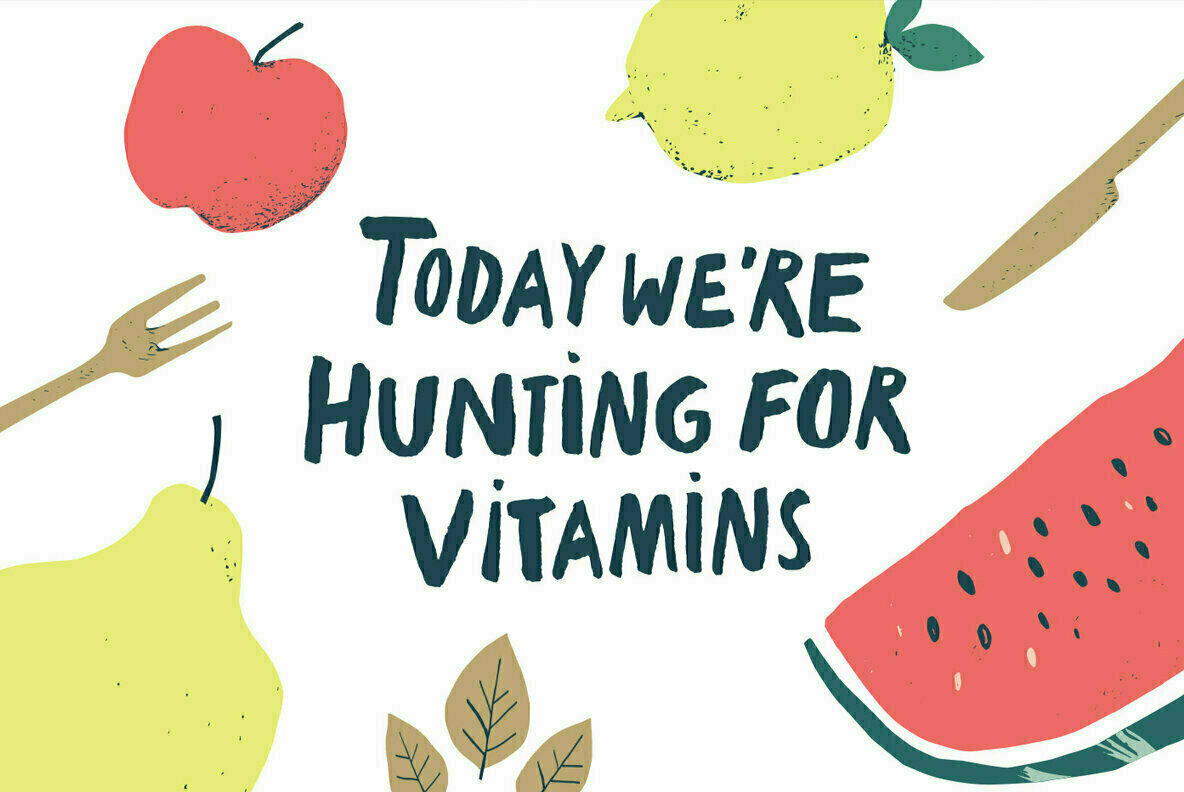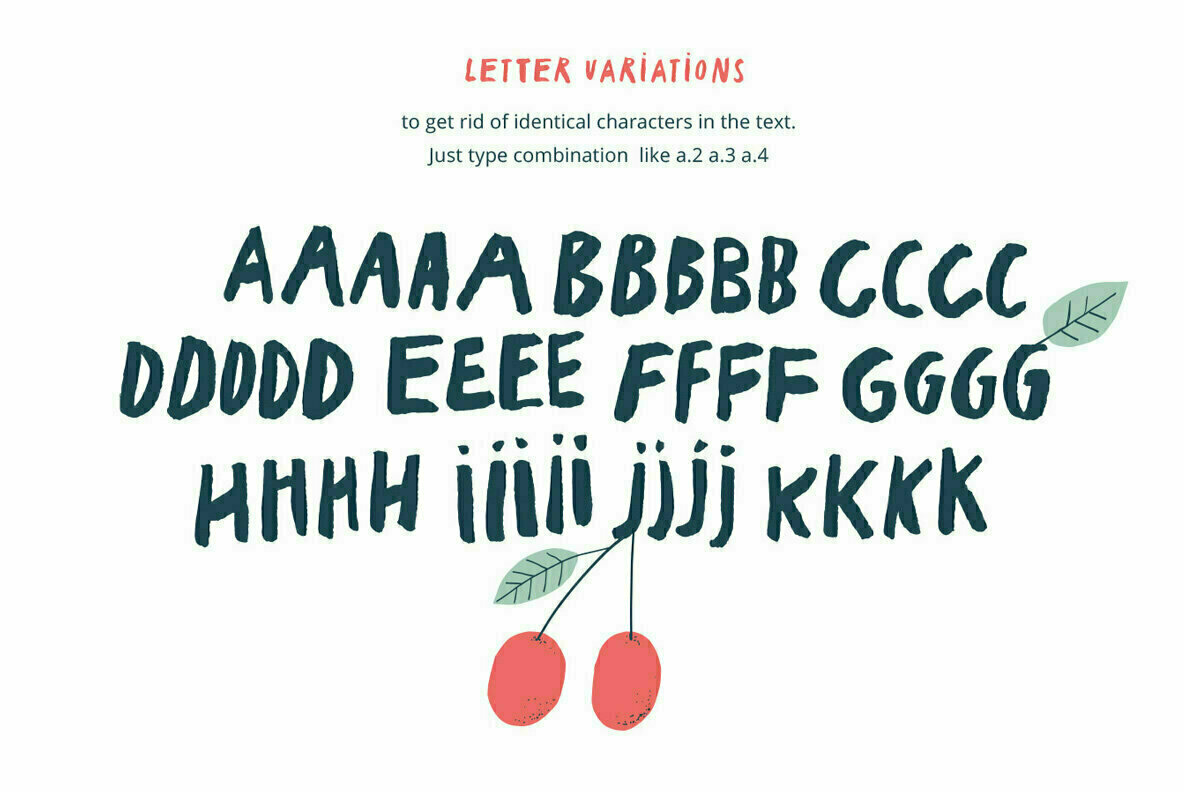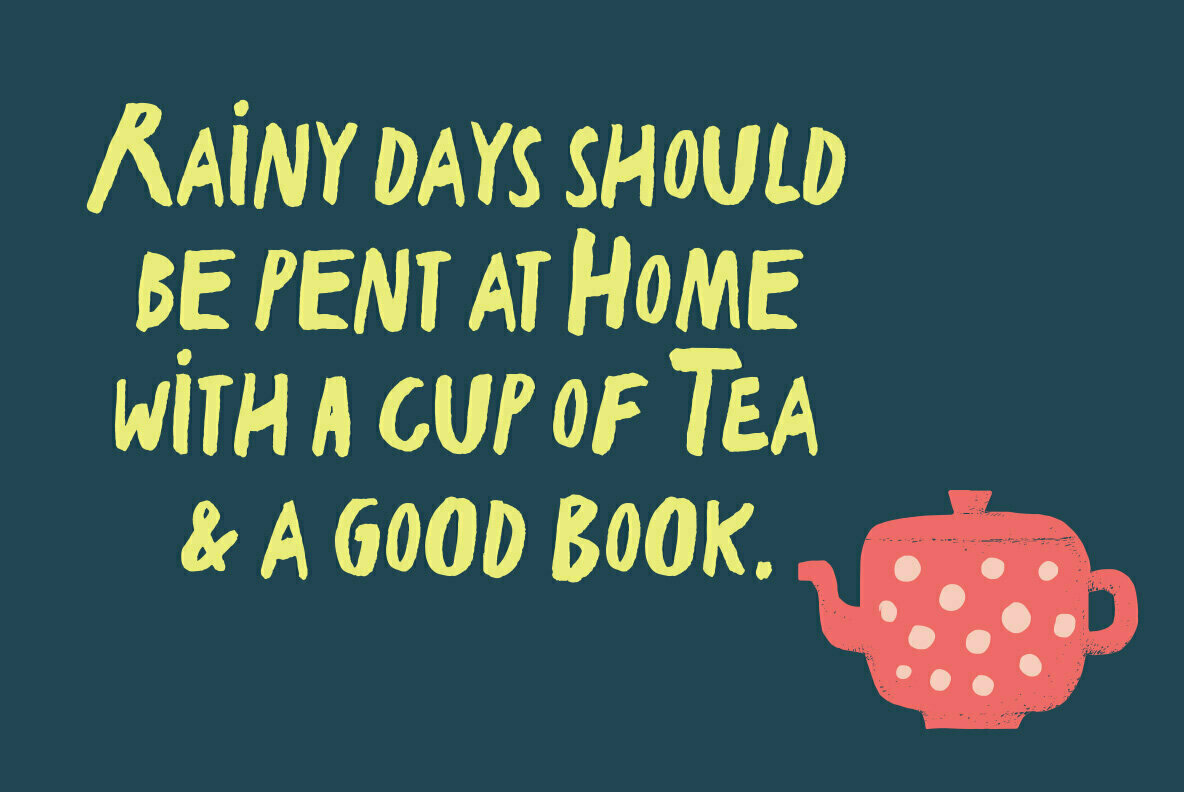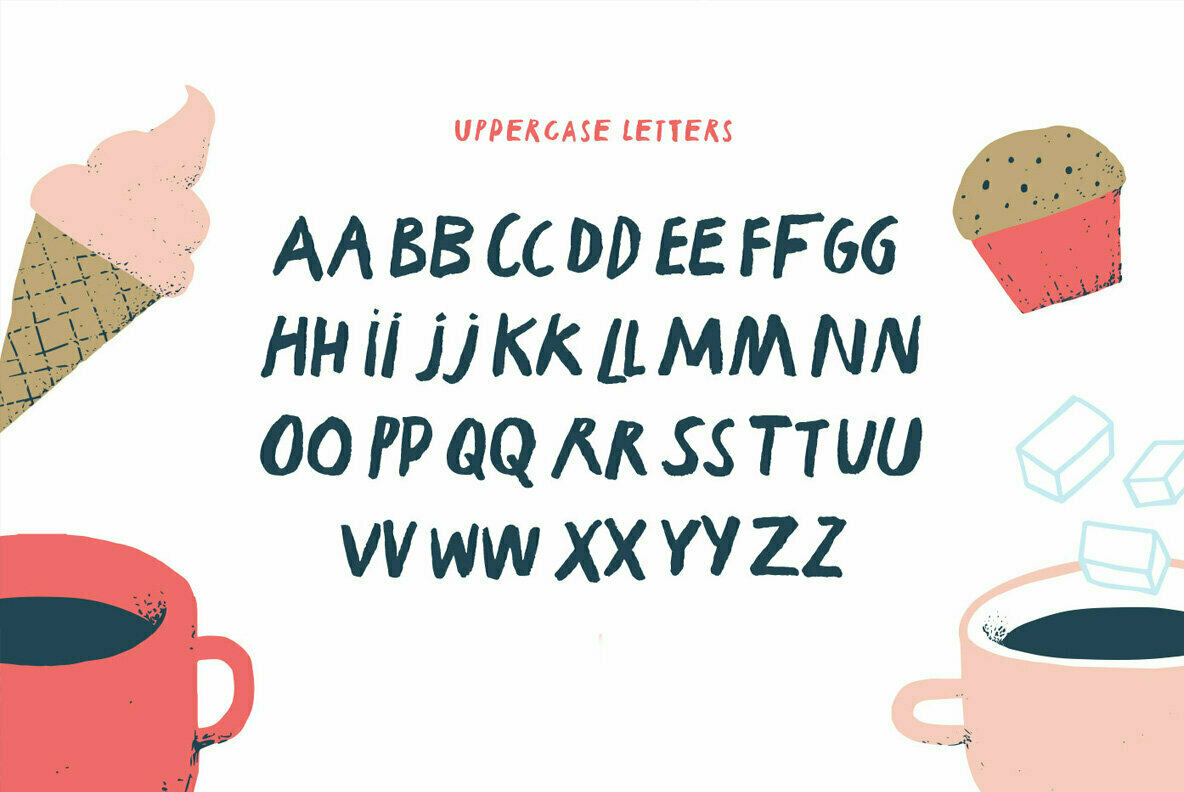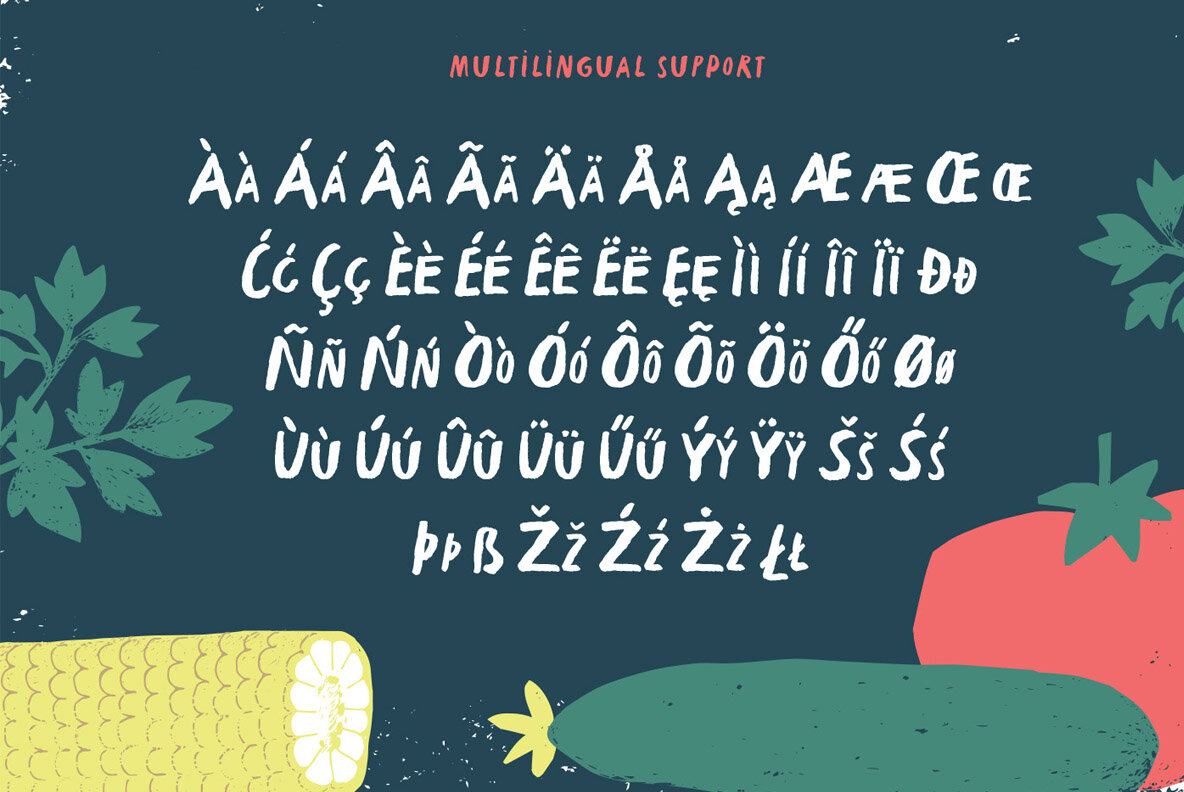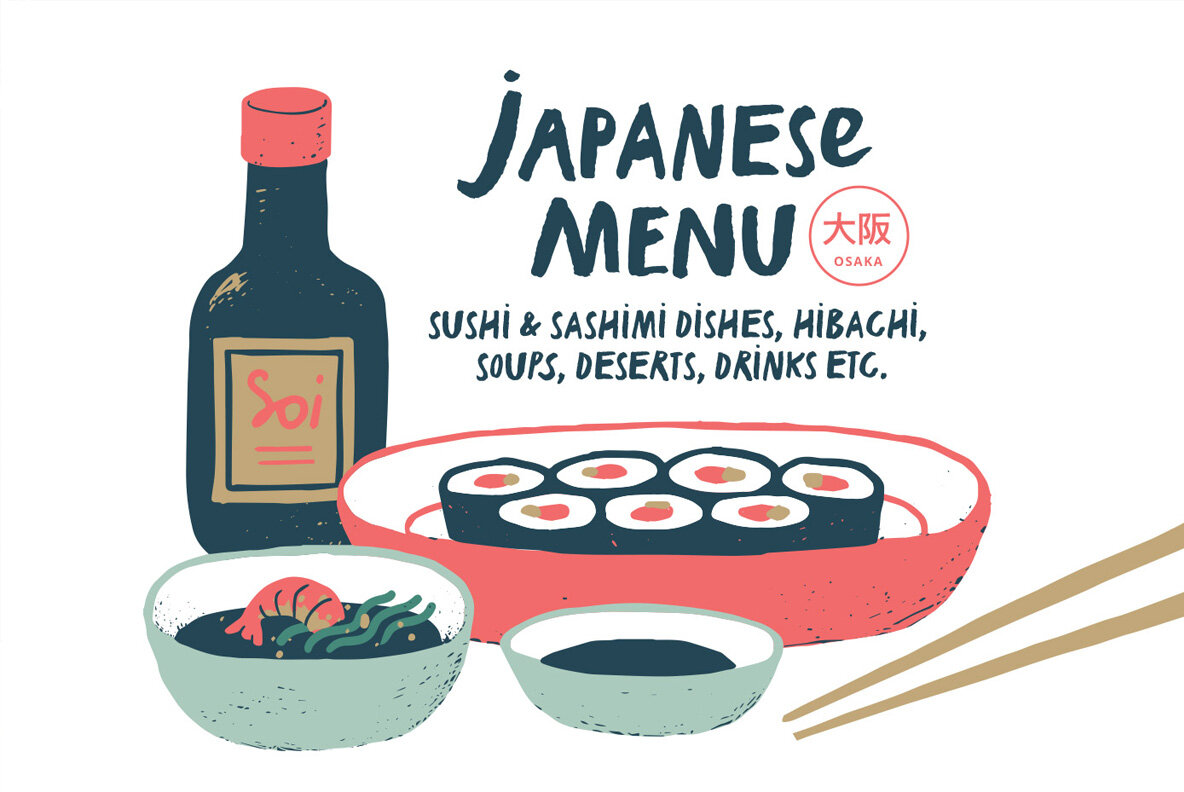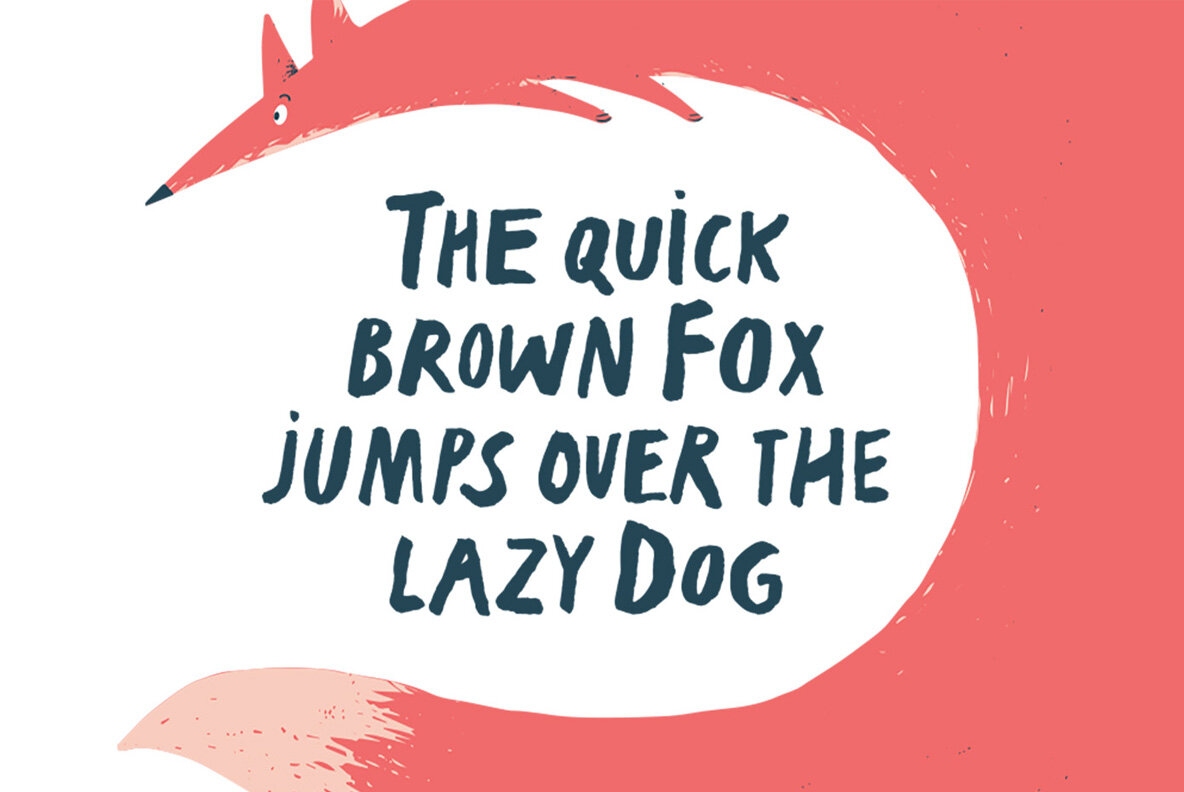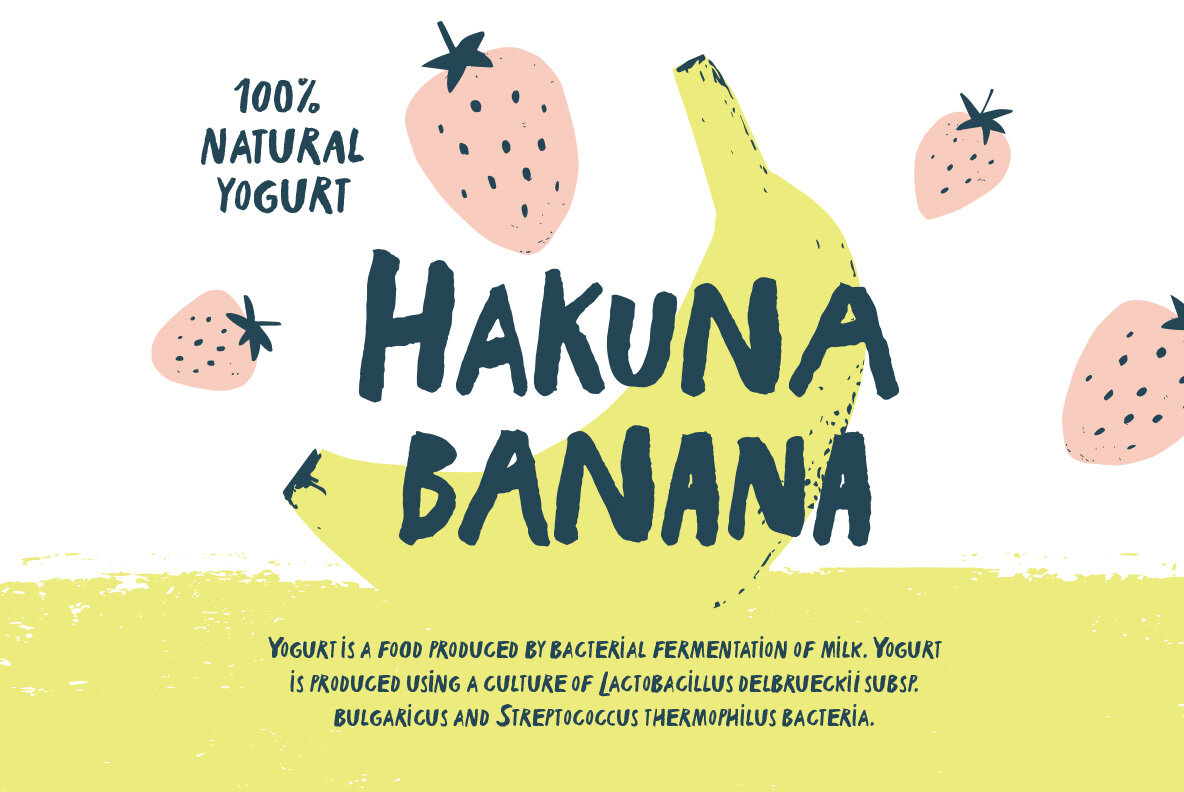
Gastro Kultura Font
Gastro Kultura
This font conveys the feeling that you took a brush and wrote something without thinking about the accuracy and without making other attempts. There is no striving for perfection and strict rules, each letter lives freely and playfully. All this reminds a holiday of a life in which everyone feels happy, no matter what he looks like.
This typeface is perfect for:
- Large headlines
- Grocery store design and coffee shops
- Packaging of food and cosmetics with an emphasis on naturalness
- Book covers
- Children's products and much more.
Due to the fact that there are many alternatives, you can get rid of the identical letters as much as if it were not a font, but the inscription you painted. Just type combination like a.2, a.3, a.4, b.2, b.3, b.4 etc.
Multilingual support (Western European characters):
Font works with following languages: Danish, Dutch, English, Estonian, Faroese, Finnish, French, German, Hungarian, Icelandic, Italian, Norwegian, Polish, Portuguese, Romanian, Slovene, Spanish, Swedish, Turkish.